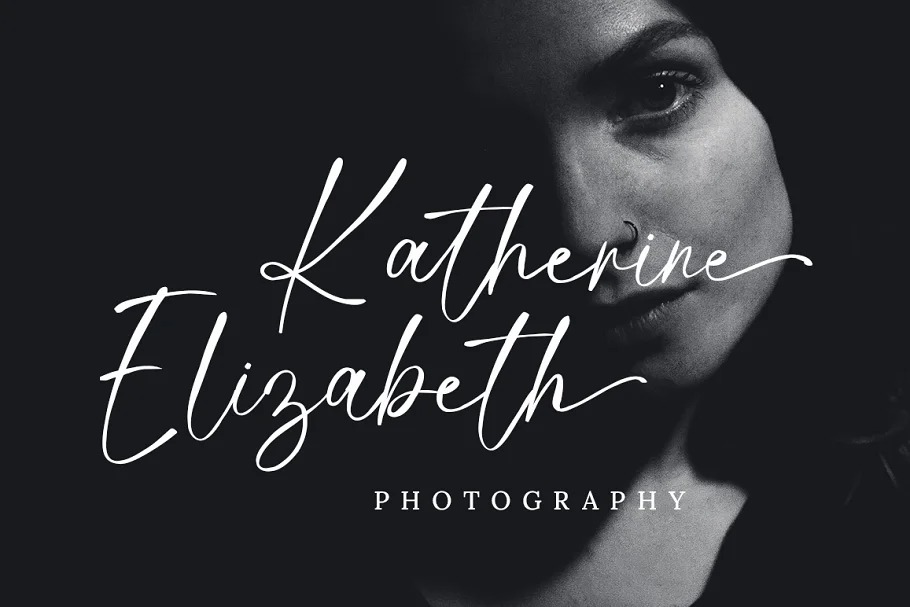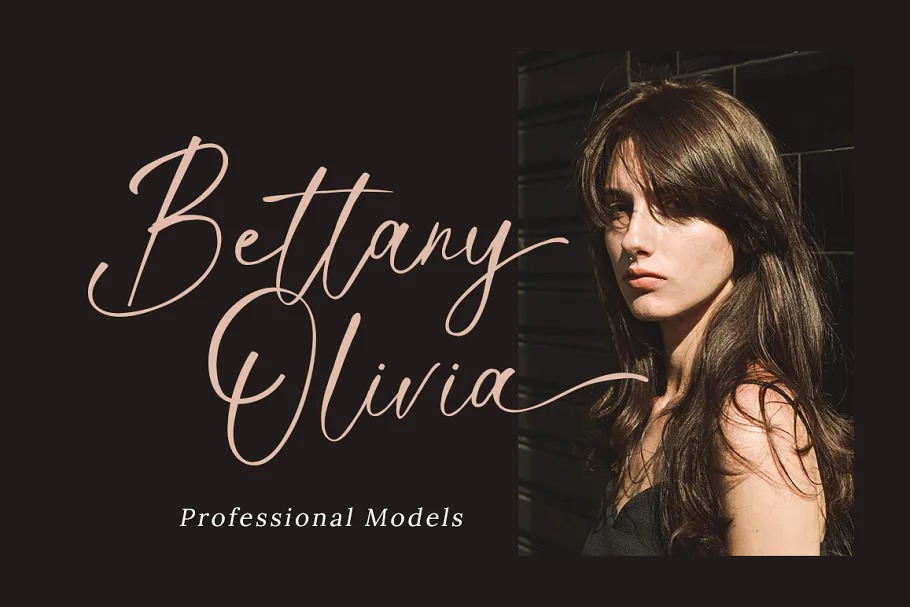
Dream Always Font
Dream Always Handwritten Font
This font is modern handmade font, dynamic and also has beautiful open type features. This stylish font will look gorgeous on a variety of design ideas. It will add a joyful and romantic touch to each of your projects!
This font is suitable for use on business branding, fashion, quotes, signature, magazine, logo, social media, photography watermarks, wedding invitations.